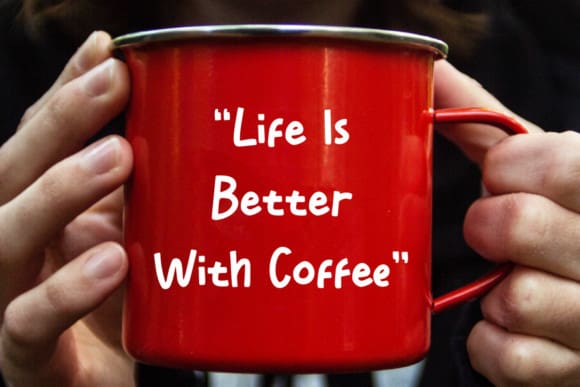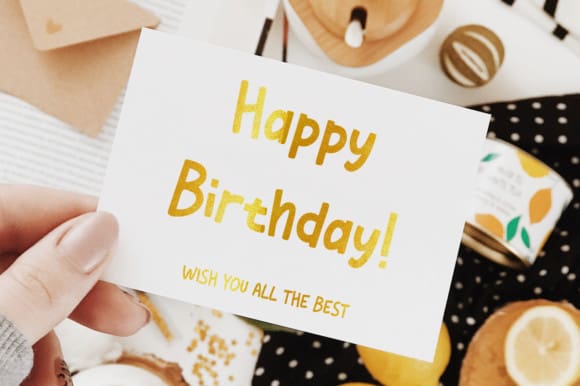
Bunny Runny Font
Bunny Runny Font is perfect for birthday cards, stickers, planners, quotes for tumblers, logos, and anything else that needs a handwritten touch. Even though it looks like handwriting, this font is quite neat and clean.